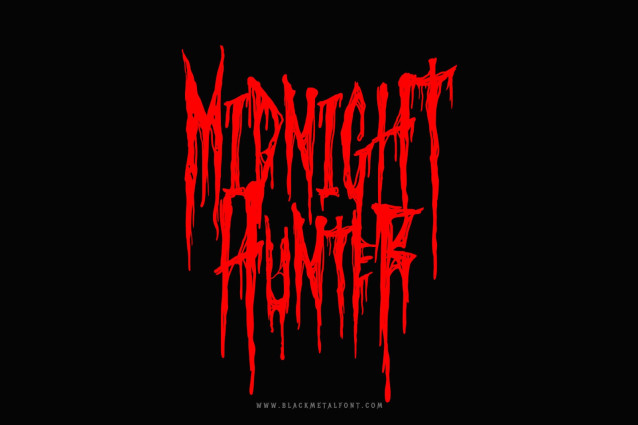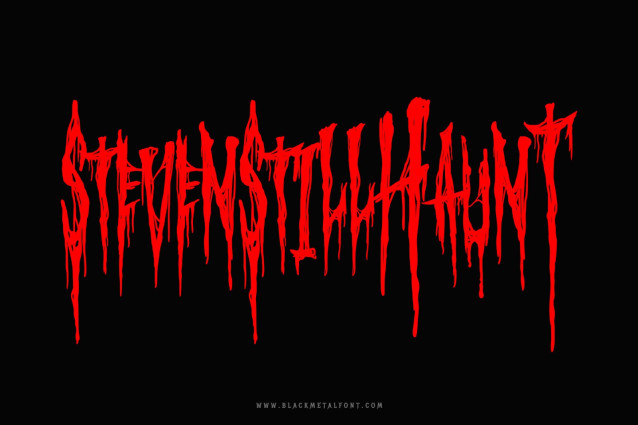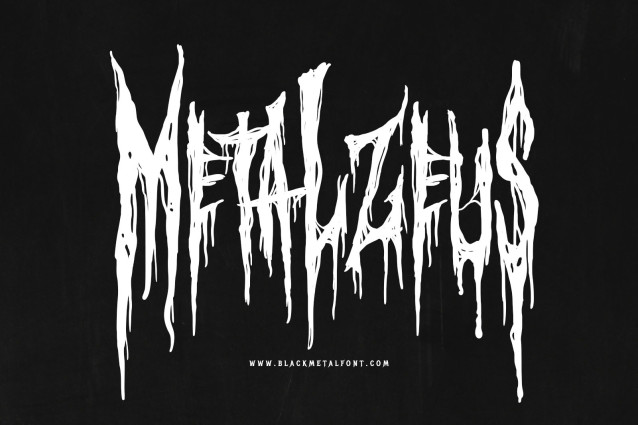
Metalzeus Halloween Font
Metalzeus Halloween Font is awesome horror font. Comes with Uppercase and lowercase characters. This font is great for any gore/metal/brutal design purposes. Metalzeus is awesome for your logo, your band, for merchandise, for clothing, and movie title/poster